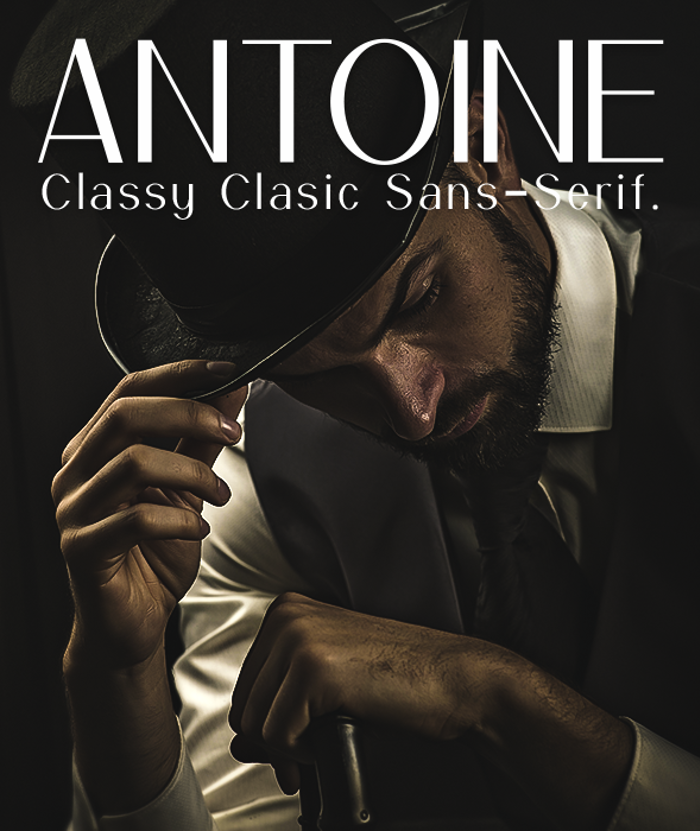
Antoine Font
The theme of Antoine is Classy Classic. The design was taken from the Sans-Serif family. Simple, classic, also elegant to use to make the page title or brochure. Antoine is indeed for this type of writing. The arches are designed to resemble classic buildings and the kerning has been trimmed to make Antoine suitable for a variety of other writings.